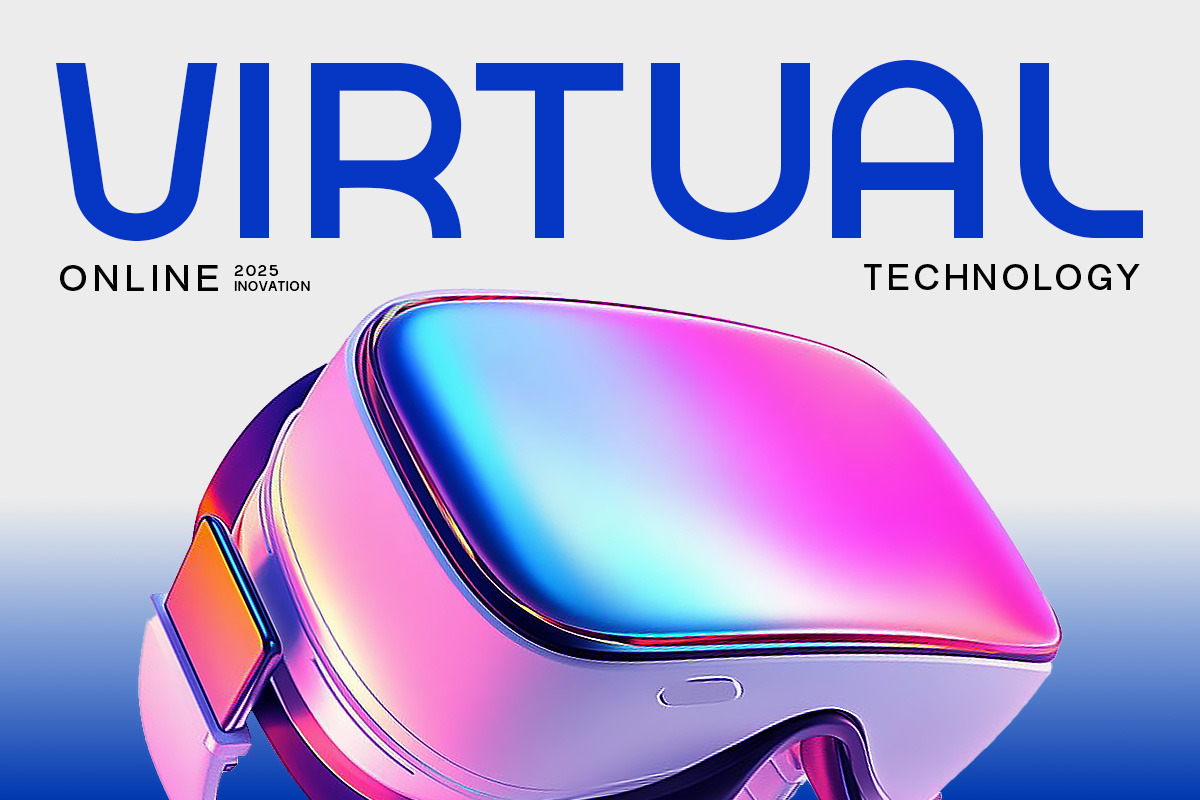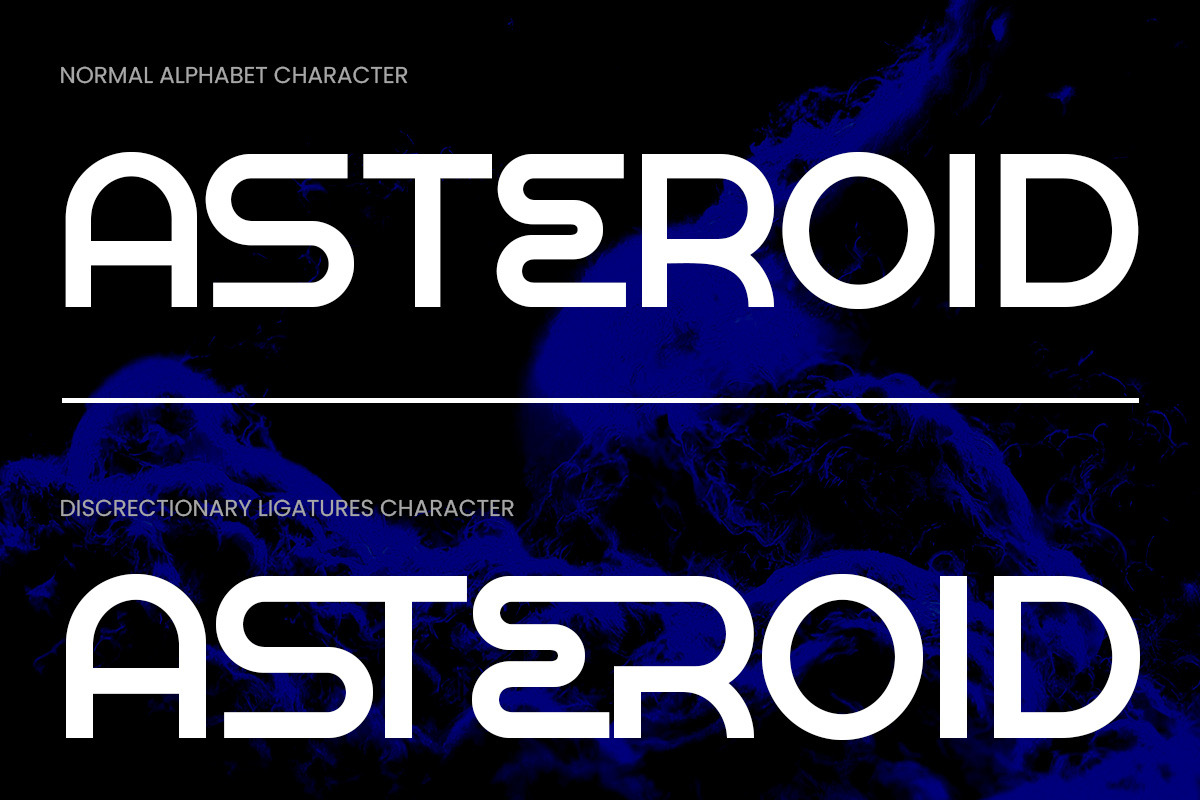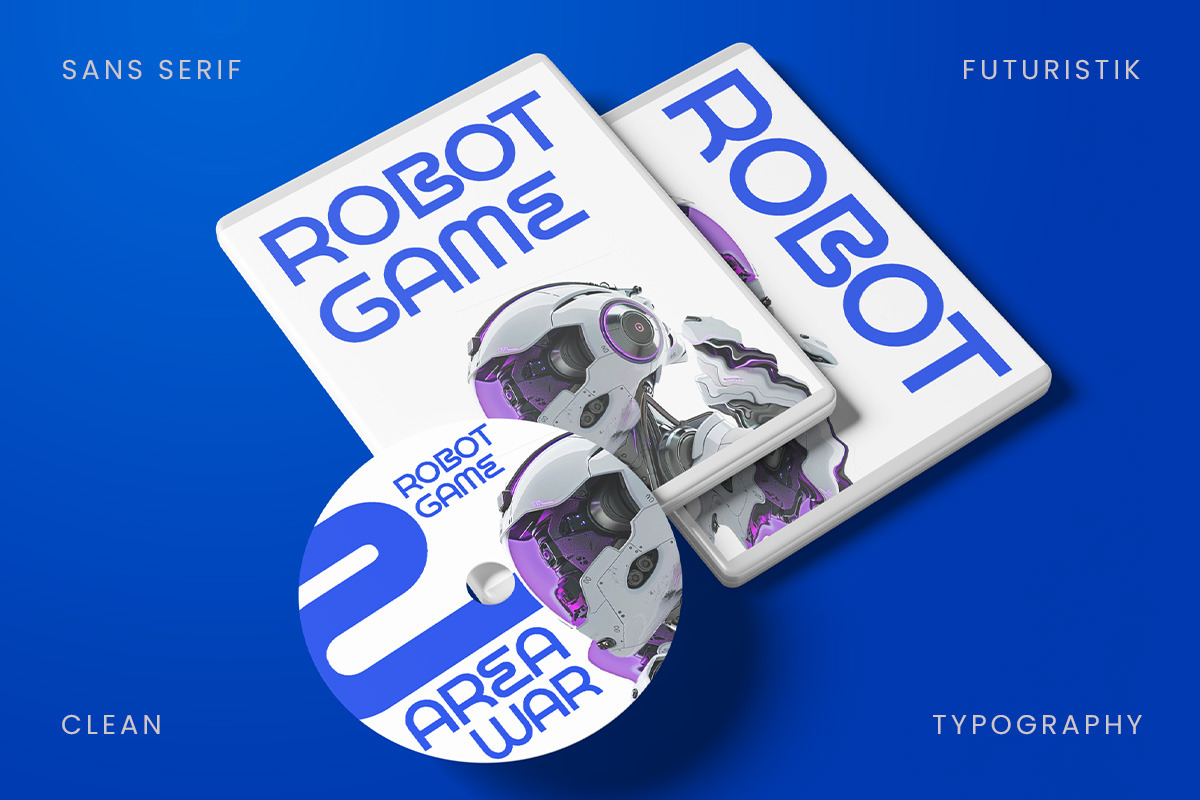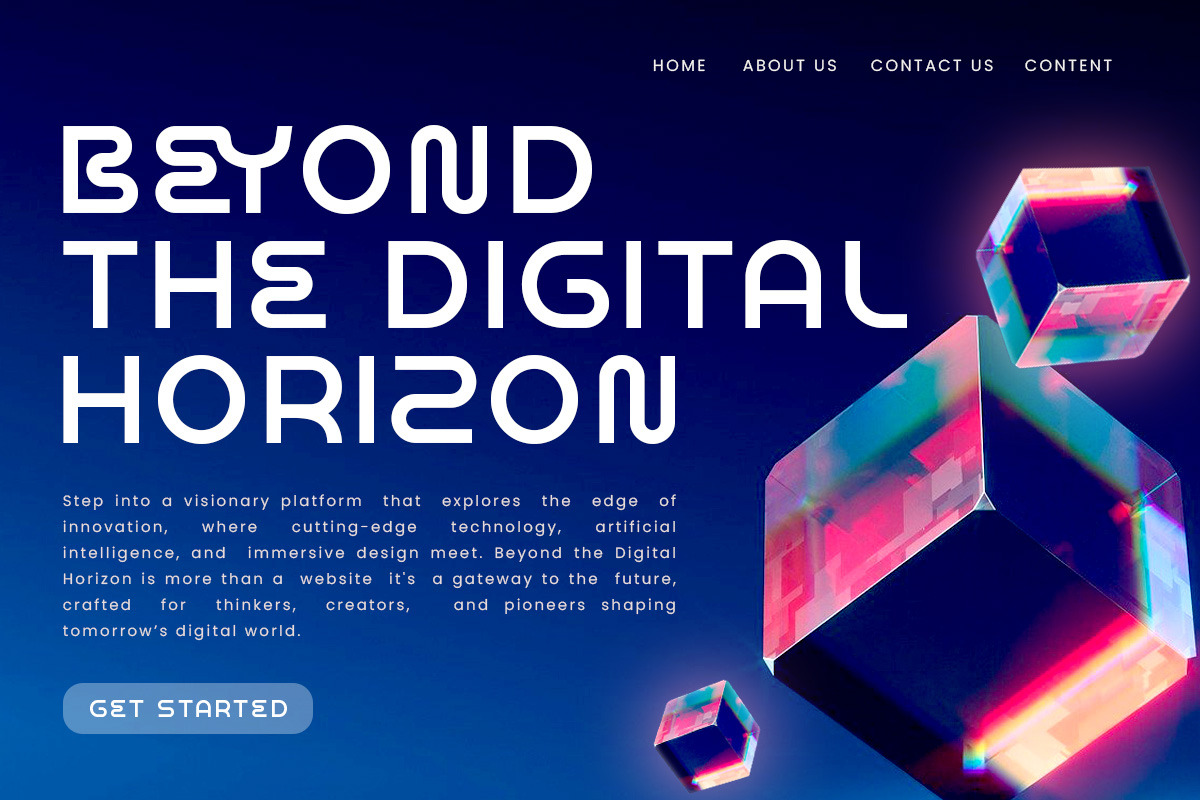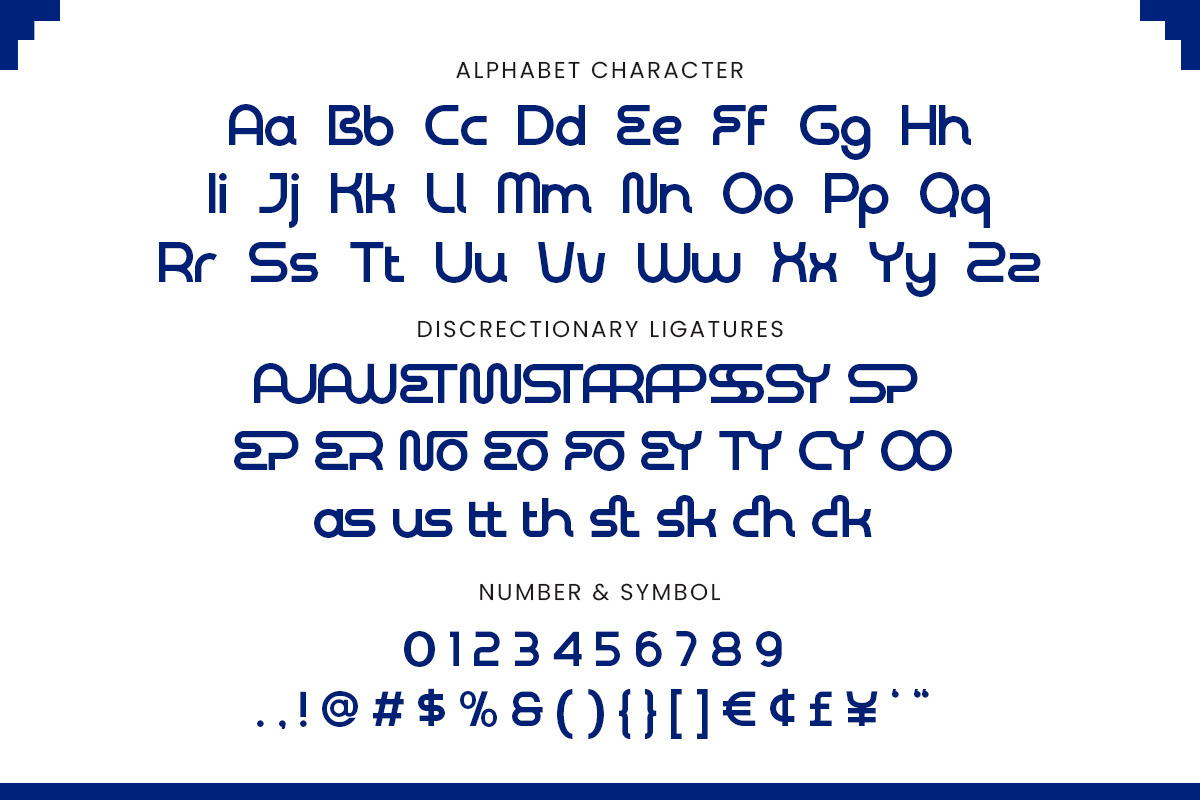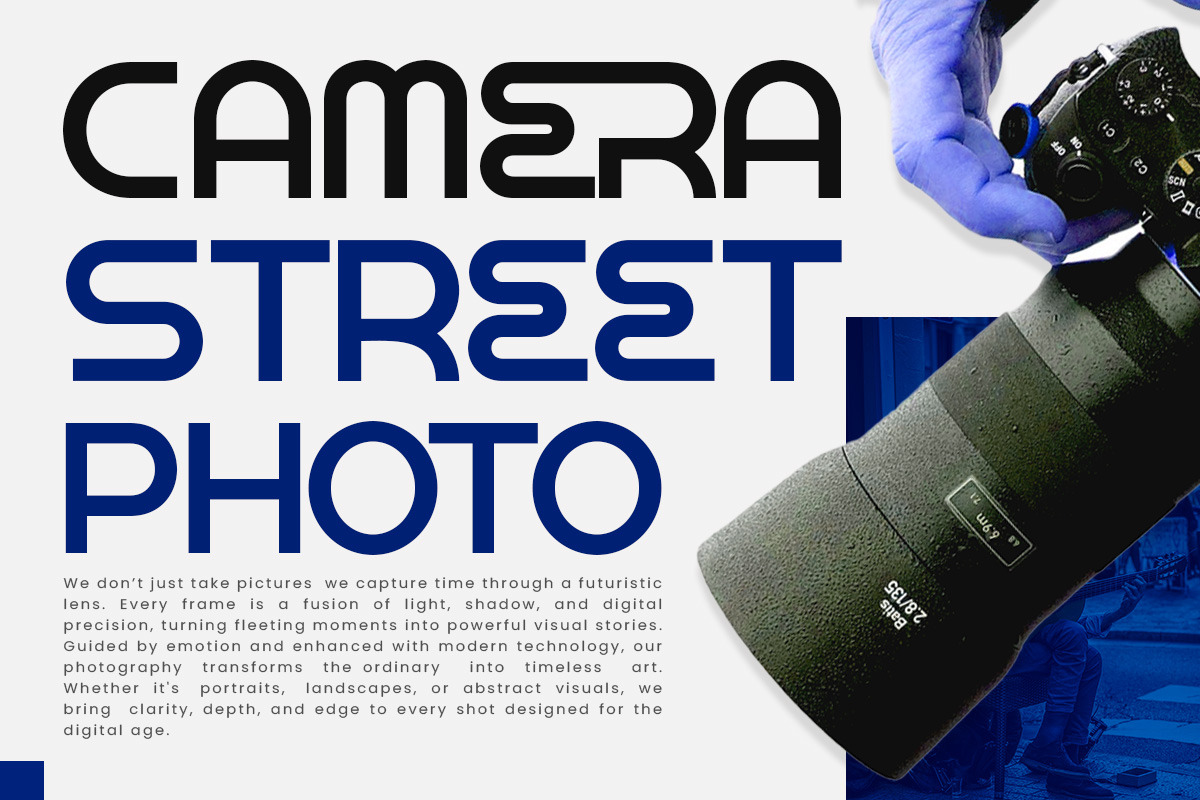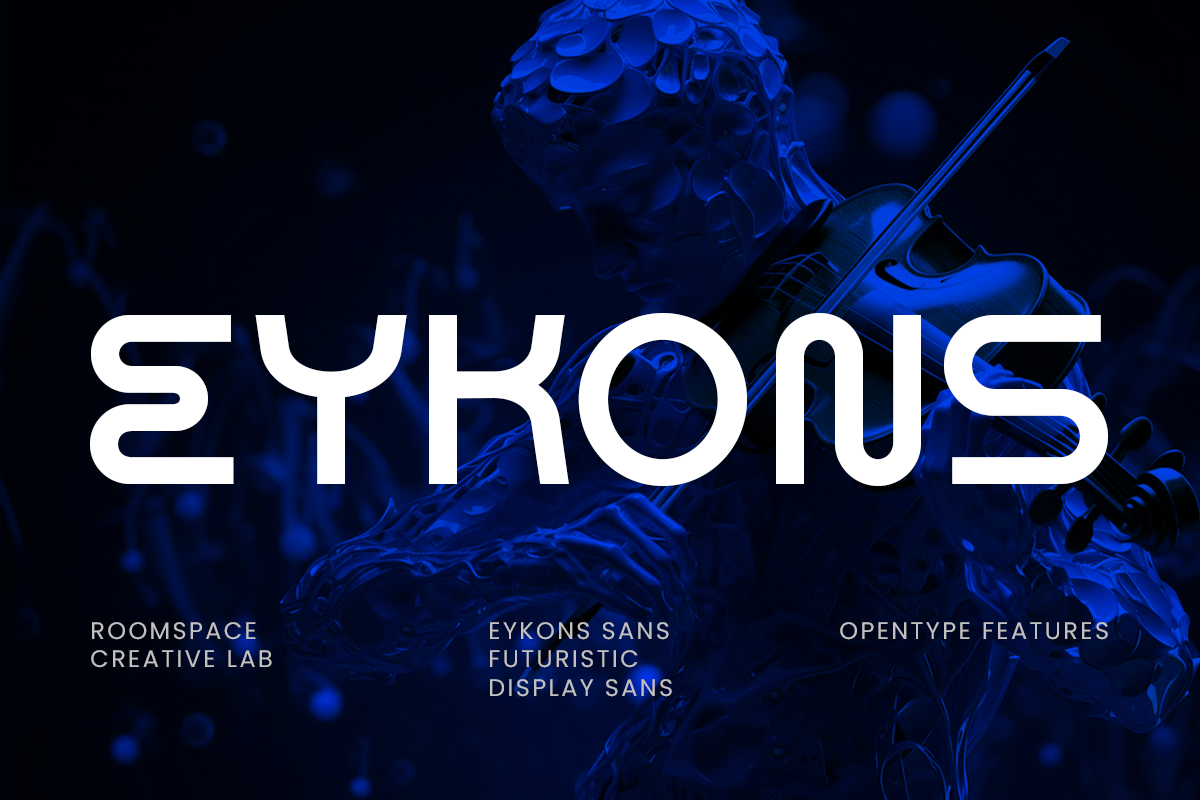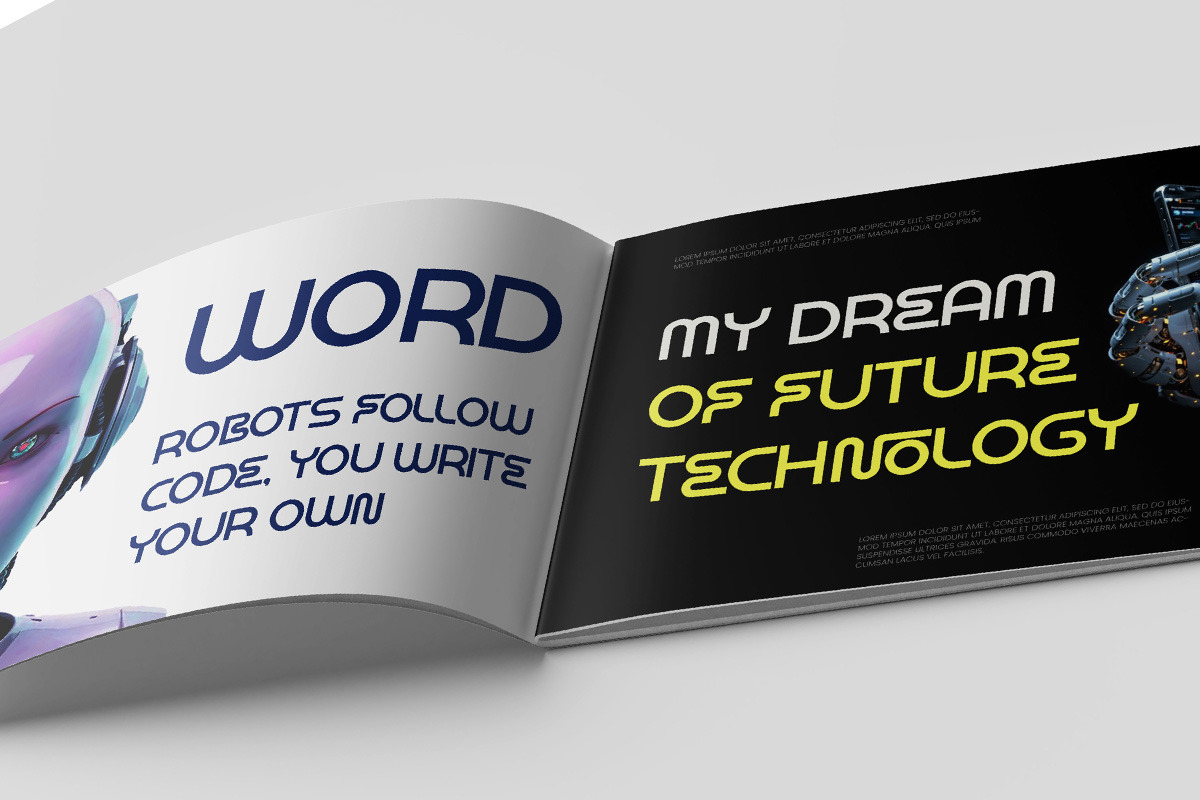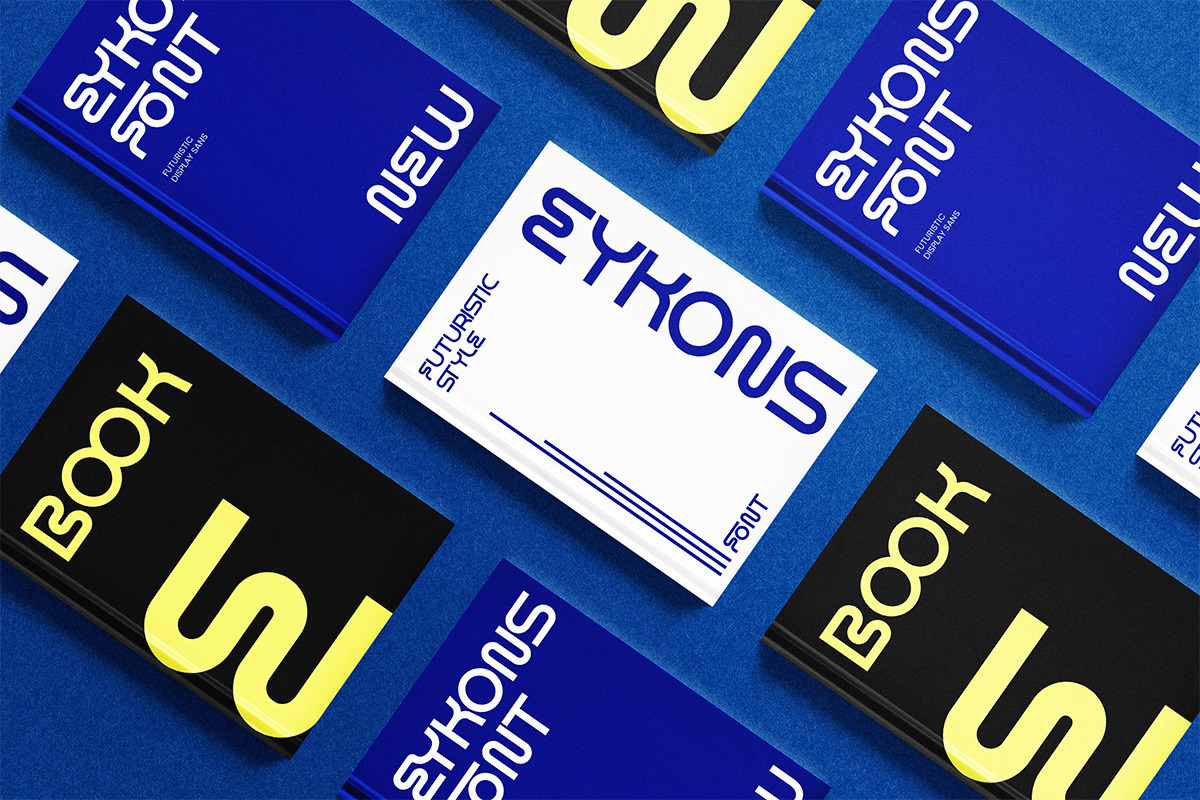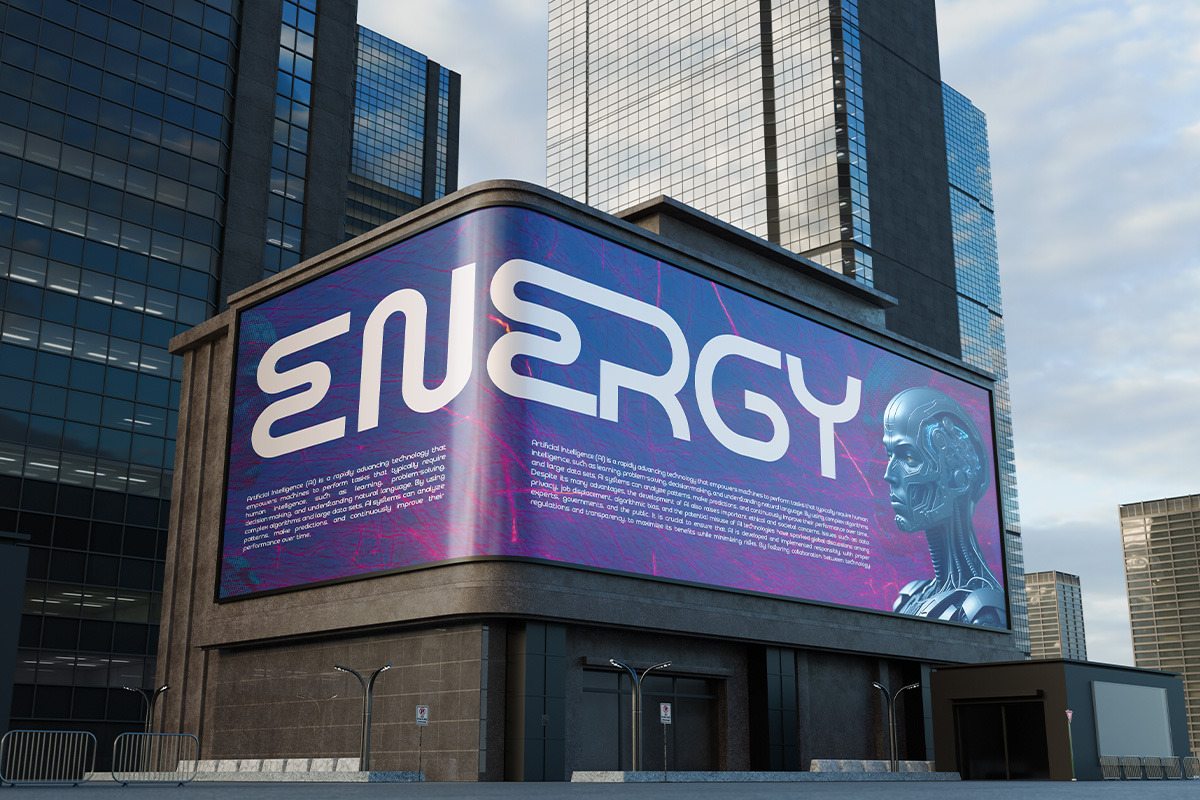
Eykons – Futuristic Sans Serif Font
Eykons is a modern futuristic sans serif font designed to bring boldness and clarity into every project. With its geometric precision and strong personality, this typeface blends luxury aesthetics with a contemporary digital vibe, making it stand out in today’s visual landscape.
Each character in Eykons is carefully crafted with clean lines, balanced proportions, and optimized kerning to ensure perfect readability. Its versatile style works seamlessly across both large headlines and smaller text applications. With OpenType features and multilingual support, this font is built to give designers flexibility and professional results.
Perfect for tech-inspired logos, modern branding, editorial layouts, social media graphics, and packaging, Eykons adapts to any creative need. Whether you want to design sleek digital interfaces or impactful posters, this typeface offers both style and strength. Add Eykons to your font collection today and give your designs a futuristic edge.